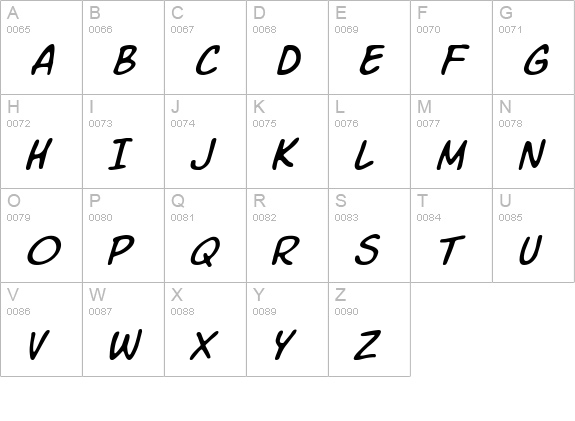
Komika Slim Italic is a distinctive, italic variant in the Komika typeface family \xE2\x80\x94 well suited to design and typography projects.
Komika Slim Italic is a stylish and modern font that exudes elegance and sophistication. With its sleek and slanted design, this font is perfect for adding a touch of flair to any project. The italicized version of Komika Slim brings a sense of dynamism and movement to the text, making it stand out and captivate the reader's attention. What makes Komika Slim Italic even more appealing is that it is available for free download at FontsMarket.com. This means that you can easily access this beautiful font and use it in your designs without any cost. Whether you're creating a poster, invitation, or logo, Komika Slim Italic is sure to elevate your design with its unique and eye-catching aesthetic. Download it now and enhance your projects with this stunning typeface.